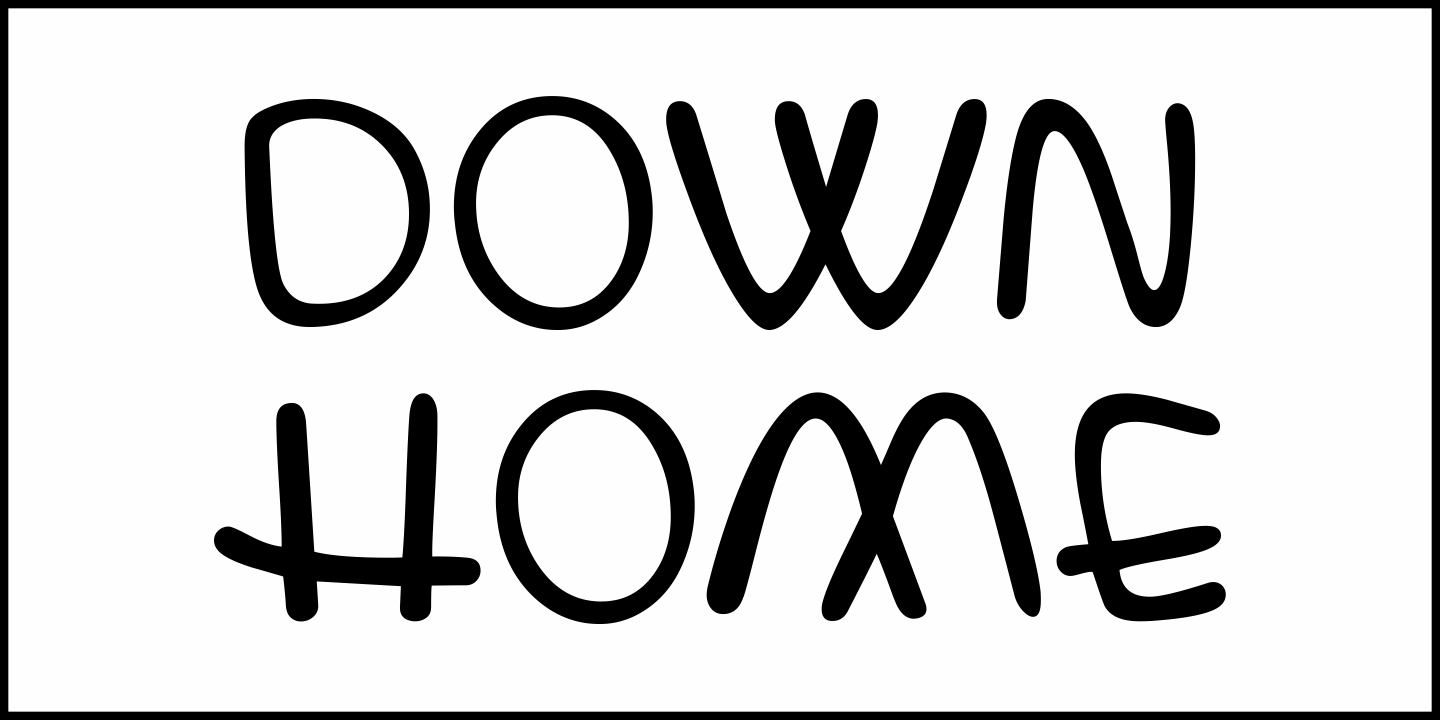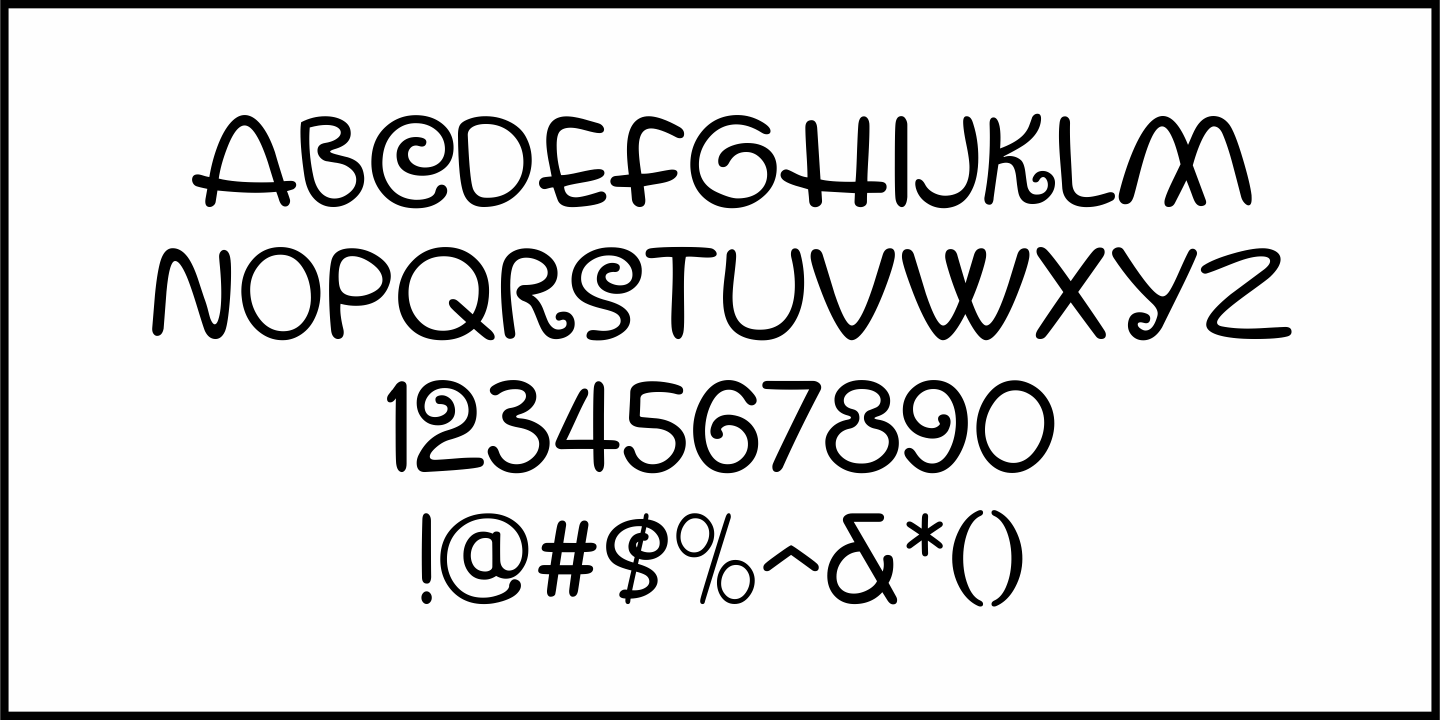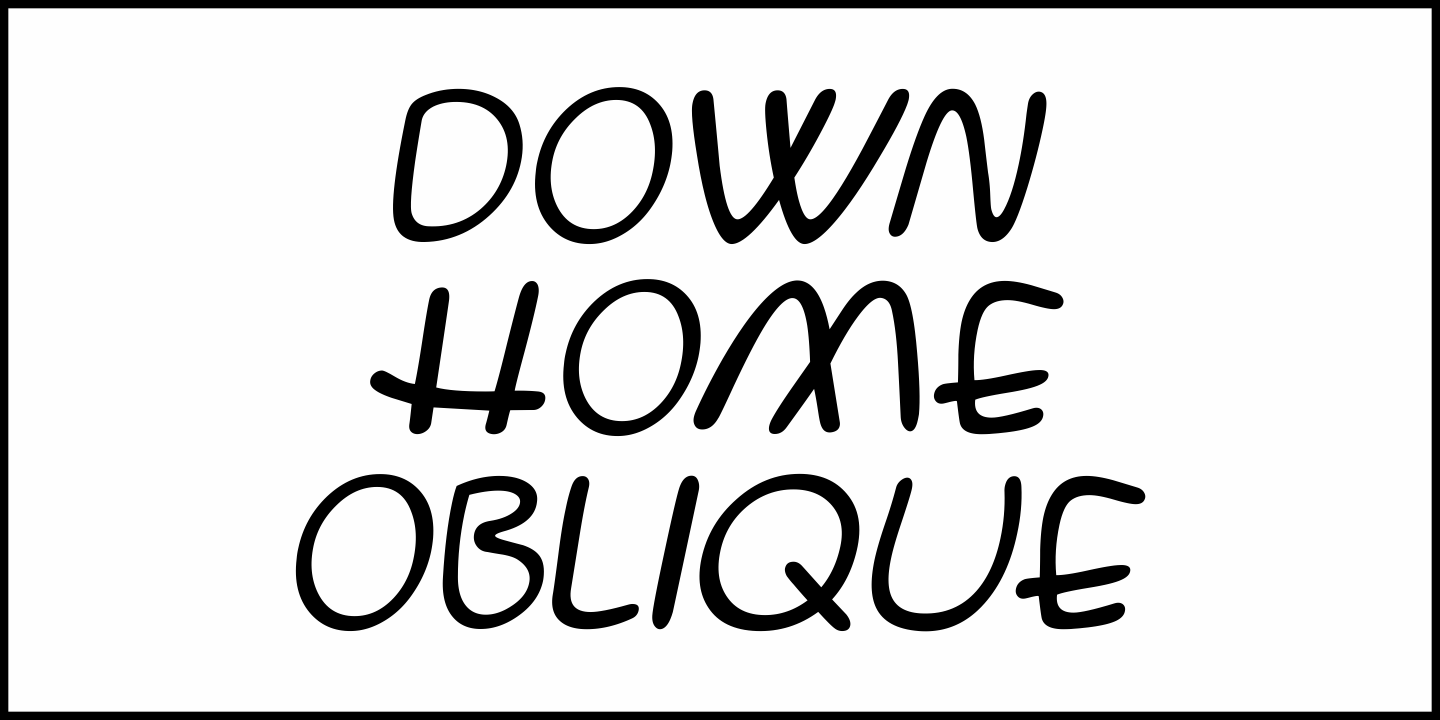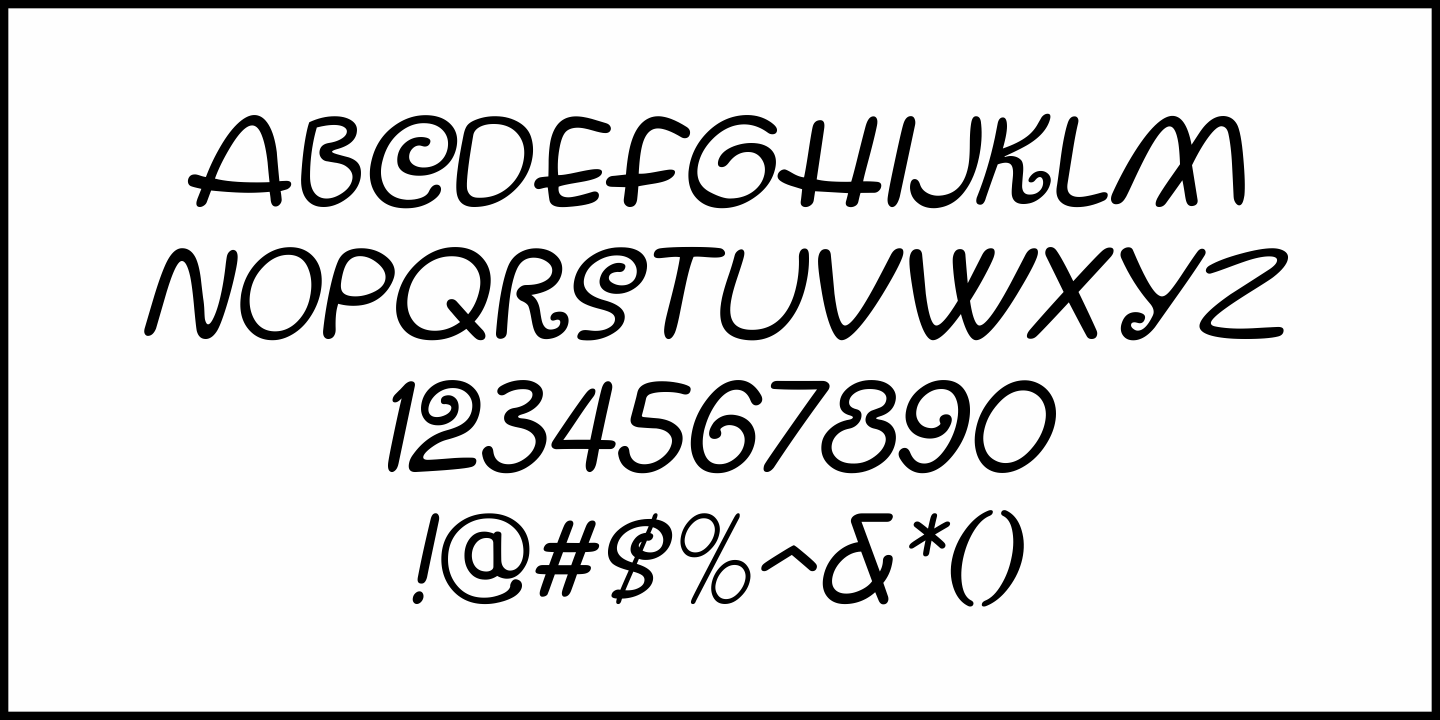
Down Home
In the October 31,1920 edition of Wid's Daily (the predecessor to The Film Daily), a block of ad copy from a 1920 film called 'Down Home” had the text printed in such a fluent pen lettered style that a bit of a shortcut was used in the beginning of the design process for this typeface. Normally, font inspirations are redrawn [and not by simply using auto-trace] except under specialized circumstances like this one where that feature is a help to, rather than a replacement for the creative process.
The entire block of text copy was auto-traced, then the necessary letters were selected from the available wording and cleaned up to remove any sharp points and irregular curves in an effort to make the end results as close to the original and unusual hand drawn text. From there the missing characters needed to produce a finished type font were created utilizing the standard methods of drawing and font construction. The end results turned out very well.
Using the film's title as it's namesake, this design is now available digitally as Down Home JNL in both regular and oblique versions.